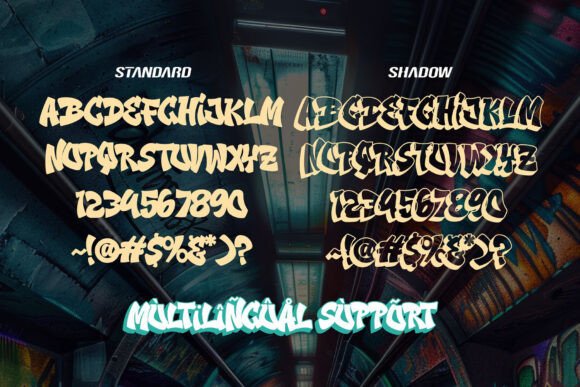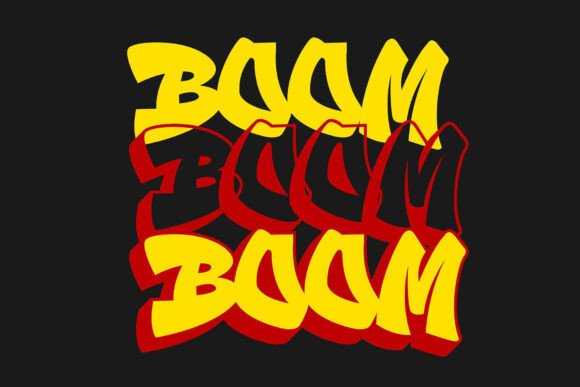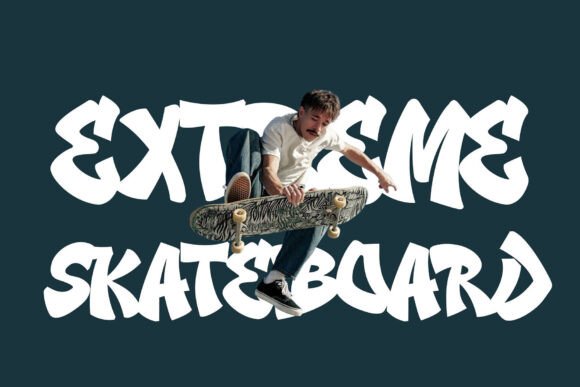
Bold Streak Font
Plunge into the realm of intensity and dimension with Bold Streak, a 3D graffiti-inspired font that dares to make a statement. Fierce, dynamic letterforms anchor this font, making it optimal for urban branding, billboard graffiti, music album covers, revolutionary posters, or any typography project craving a splash of boldness.Layered styles—including solid, outline and extrude—define Bold Streak, offering limitless creative experimentation to breathe life and dynamism into your designs. From the creation of underground graphics to hip-hop styles or an illustrative graffiti masterpiece, Bold Streak presents a rough, vibrant aesthetic that refuses to blend into the background, distinguishing itself naturally. Harness the power of Bold Streak and watch your designs explode with distinctiveness and energy.